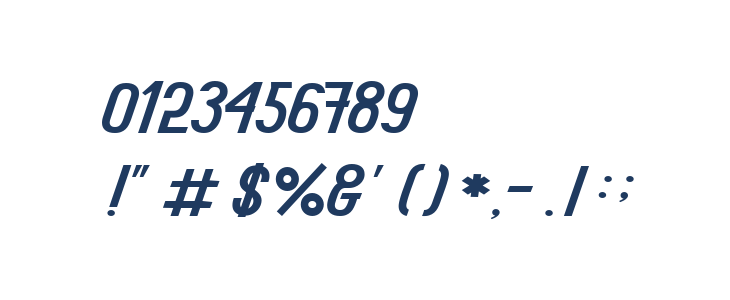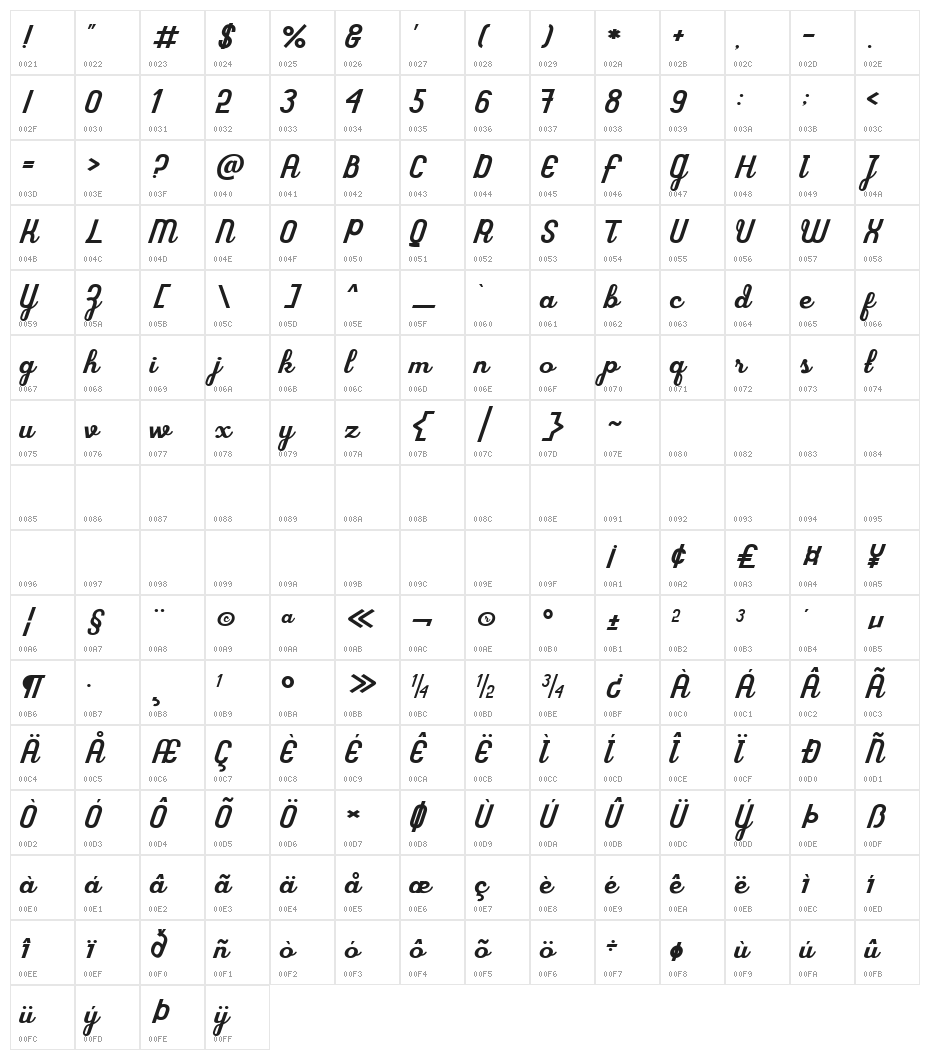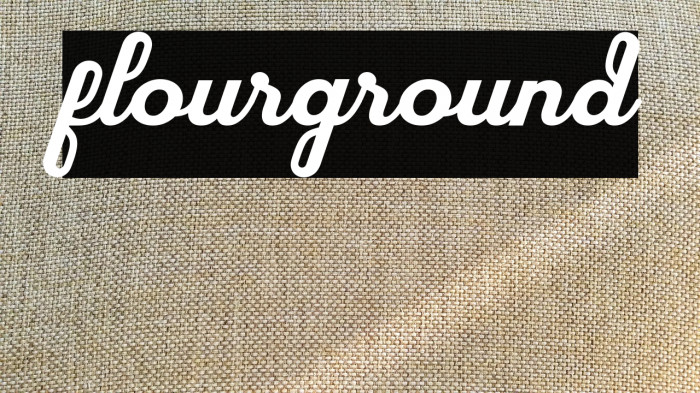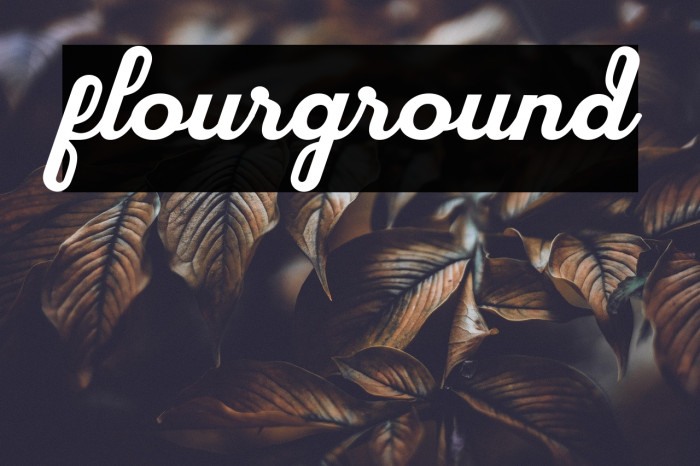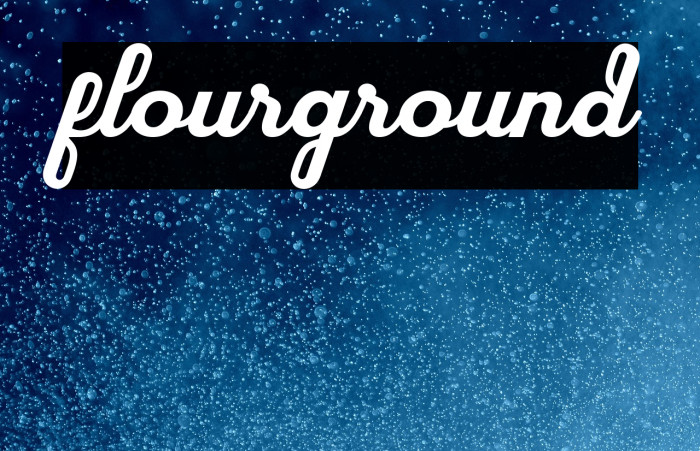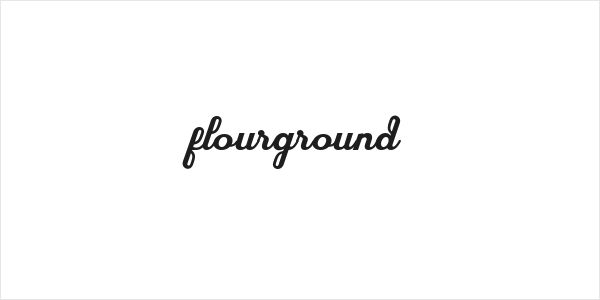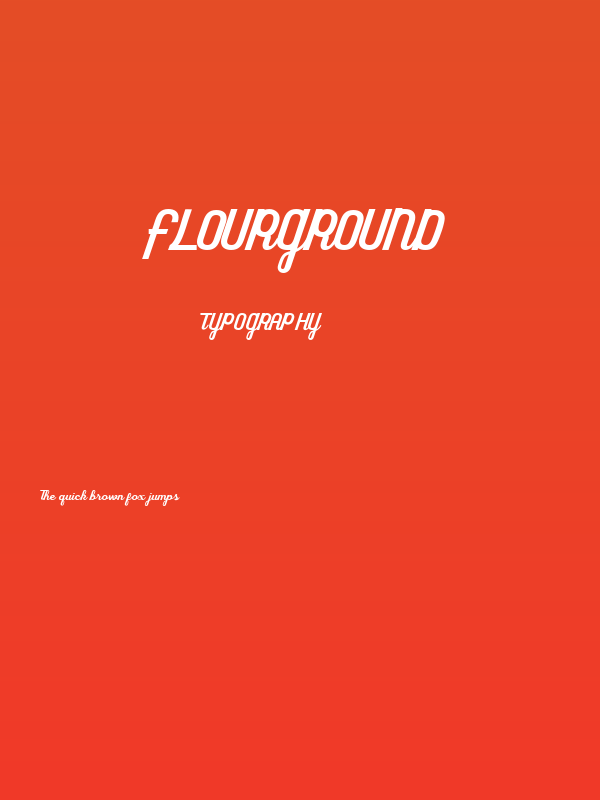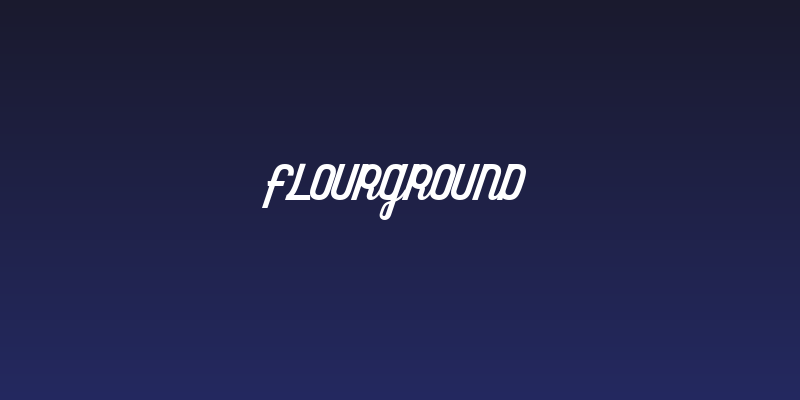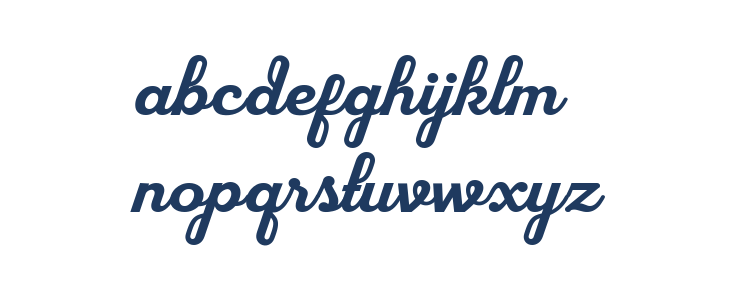
flourground Font
flourground Description
This font features a bold, cursive style with a modern twist, combining elements of both script and sans-serif. The uppercase letters are tall and slightly condensed, with a consistent stroke width that gives a clean and uniform appearance. The lowercase letters maintain a flowing, connected script style, enhancing the font's elegant and dynamic look. Numbers and special characters are designed to match the overall aesthetic, ensuring versatility across various applications. The font's smooth curves and balanced proportions make it suitable for both digital and print media.
| Proposed Projects | Ideal for branding, logo design, headlines, and creative projects that require a stylish and modern touch. |